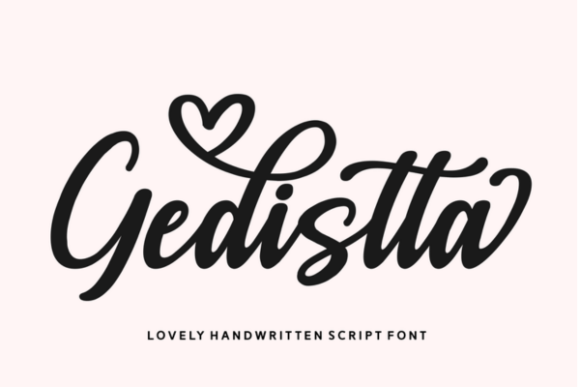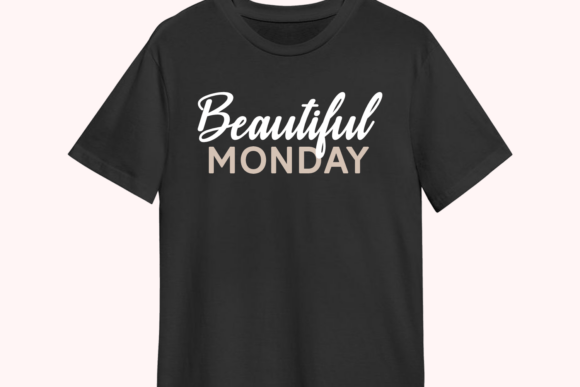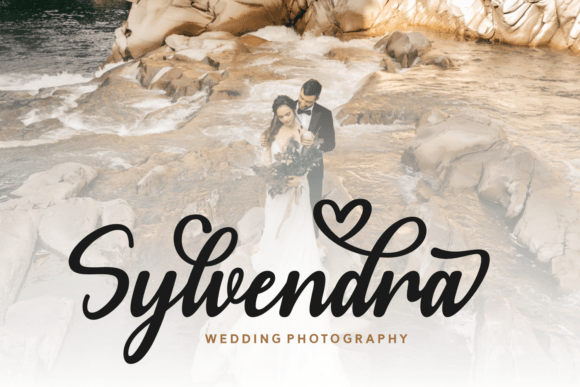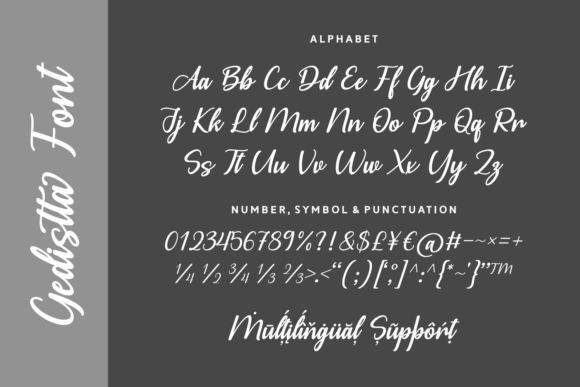
Gedistta Font: Sweet Handwritten Script for Valentine’s & Social Media
About the Gedistta Font
Add a touch of class to your work with the Gedistta Font, a truly exceptional typeface. Gedistta is a lovely handwritten script font that blends bold strokes with graceful swashes and a playful heart accent. Its casual charm and stylish curves make it perfect for love-themed designs, branding, quotes, social media, and handmade product packaging. Gedistta captures a heartfelt, personal feel—ideal for projects that want to be both sweet and striking.
Gedistta thrives in applications requiring a touch of handmade charm; logos, short headlines, invitations, and social media graphics are ideal. Avoid using it for large blocks of text or body copy; the script’s inherent informality and varying stroke weights make it less legible for extended reading. Its playful energy is best suited to brands focused on warmth, creativity, or handcrafted goods.
Pairing Gedistta with a clean sans-serif like Montserrat or a geometric sans-serif like Futura adds a modern counterpoint to its whimsical style, creating visual balance. For a more traditional feel, consider pairing it with a serif like Playfair Display, which complements its elegant swashes without overwhelming the design.
The font’s overall personality is best described as friendly and approachable yet stylish. It projects a sense of youthful energy and handmade authenticity, making it a strong choice for projects that value personality and visual appeal over strict formality.